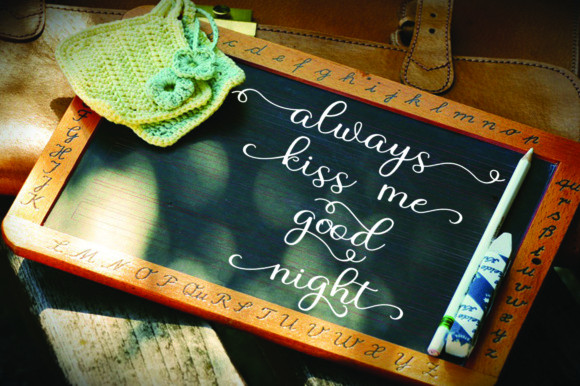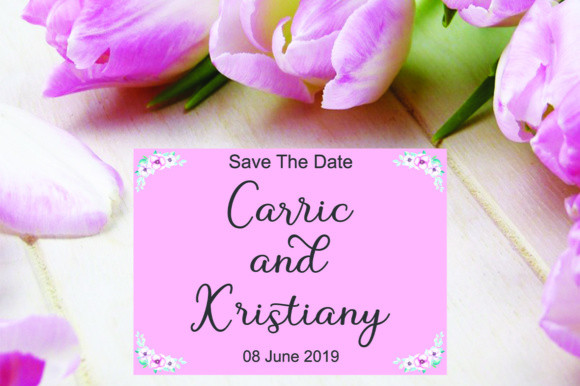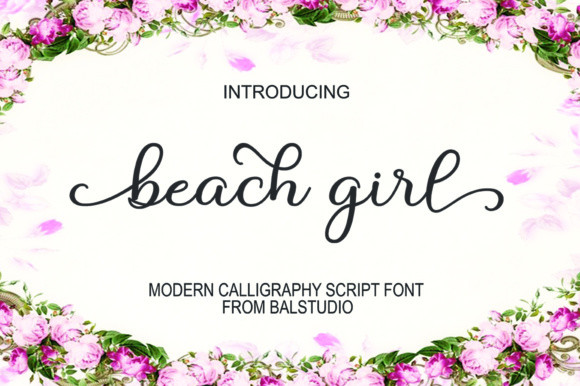
Beach Girl Font
Beach Girl Script is a modern script, with decorative handwritten characters and a dancing baseline. Very suitable for use in blog headers, branding, t-shirts, weddings, social media, product designs and more.